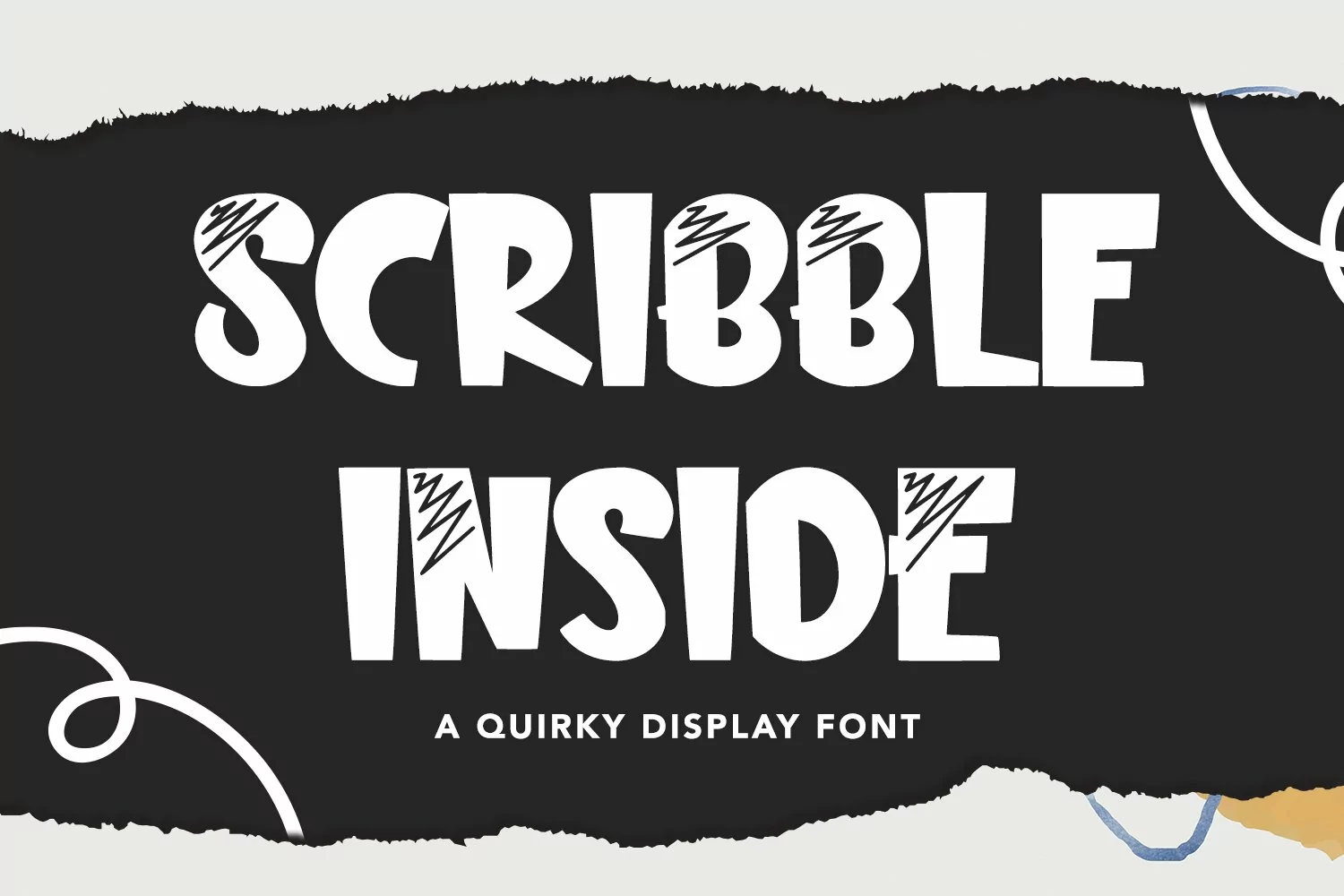
Scribble Inside - A Quirky Display Font that contain lowercase, uppercase, symbol, and also support multi language. There’s a lot ligatures in this font. This Font also comes with ligatures, alternates and many more. this font suitable for fashion, branding, catalog and other design what you want.